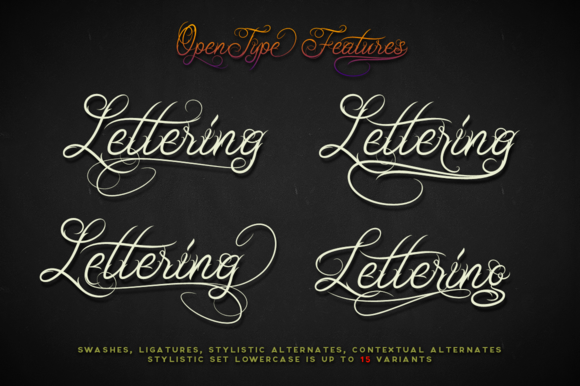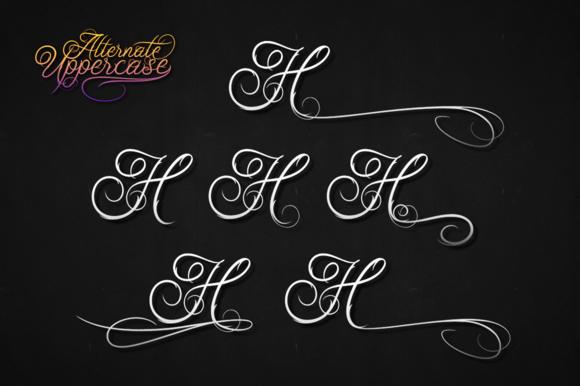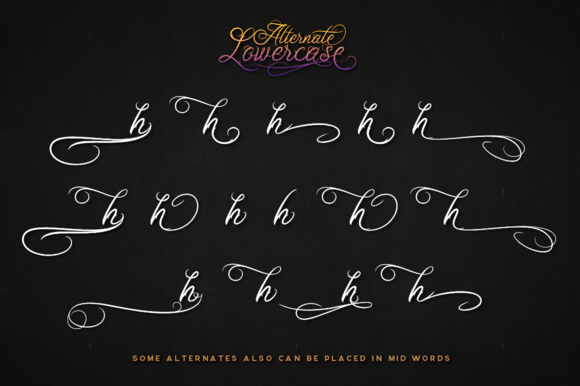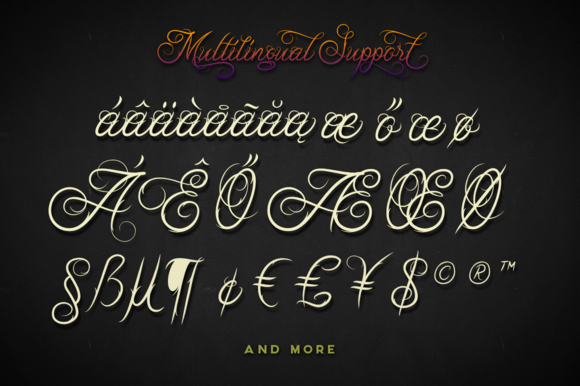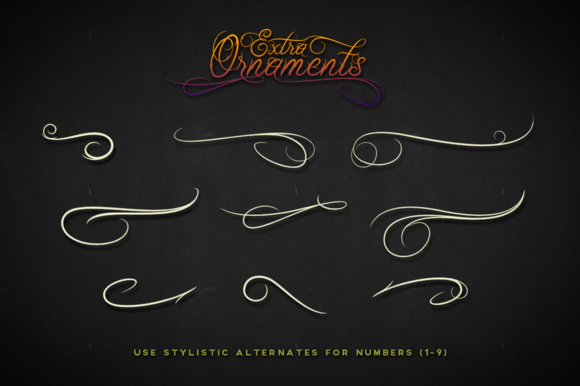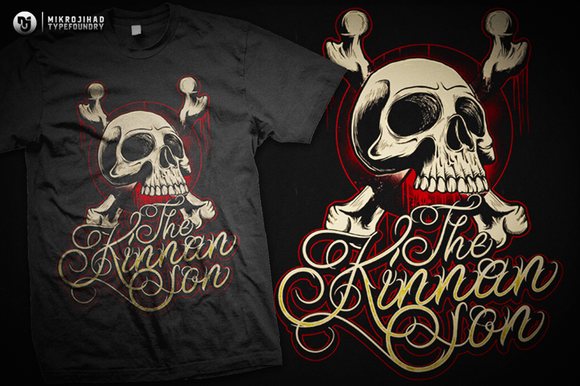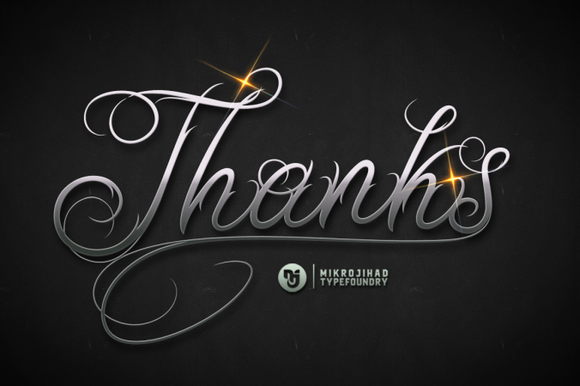
Ababil Script Full Font
This elegant Ababil script is inspired by tattoo lettering styles.
Ababil script is built with OpenType Features, Stylistic Alternates, Contextual Alternates, and Lots of Ligatures